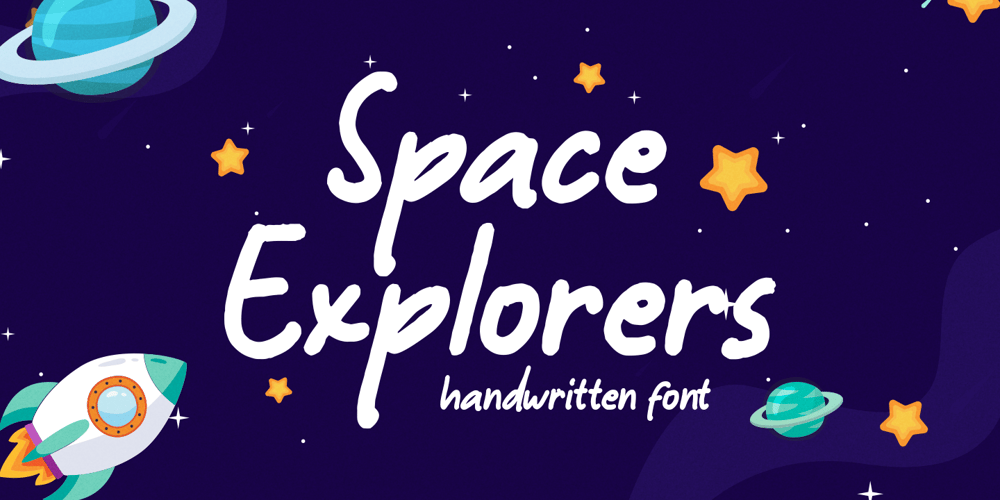
Space Explorers Font Family was designed by Hendry Juanda and published by Letterhend. Space Explorers contains 1 styles and family package options. Introducing, Space Explorers – A casual handwritten font. This type of font perfectly made to be applied especially in logo, and the other various formal forms such as invitations, labels, logos, magazines, books, greeting / wedding cards, packaging, fashion, make up, stationery, novels, labels or any type of advertising purpose.Features : Uppercase & lowercase Numbers and punctuation Multilingual PUA encoded